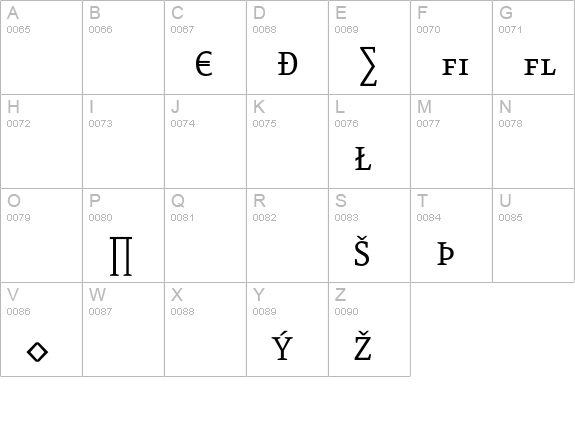
Eureka SmallCaps Exp font is a stylish and modern typeface that exudes elegance and sophistication. With its unique small caps design, this font is perfect for adding a touch of class to any project. The clean lines and smooth curves of Eureka SmallCaps Exp make it versatile and suitable for a wide range of applications, from branding to editorial design. And the best part is, Eureka SmallCaps Exp font is completely free to download! You can get your hands on this beautiful font at FontsMarket.com and start using it in your projects right away. Don't miss out on this opportunity to elevate your designs with the timeless appeal of Eureka SmallCaps Exp font.